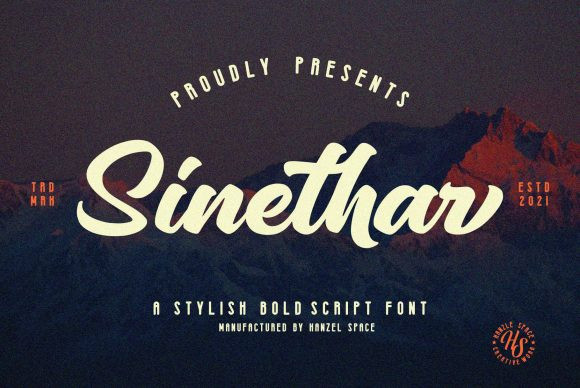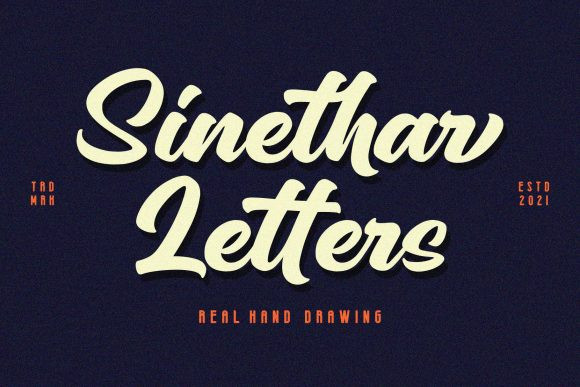
Sinethar Font
Sinethar is a thick lettered, vintage styled handwritten font, crafted to give your headlines and logotype projects a stylish touch. This font reads as strong, confident, and dynamic and can add tons of nostalgic character to your designs.